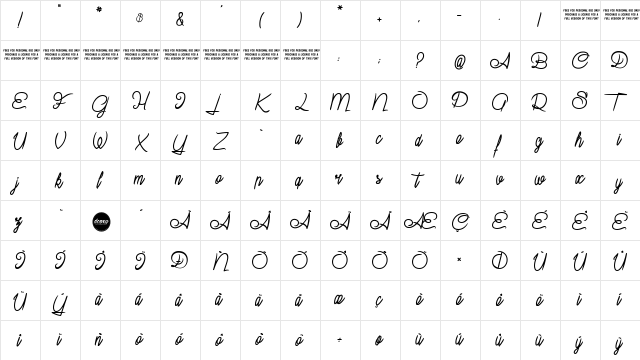
Suburban Pledge Regular
Foundry: dcoxy Medina Gregory
Designer: dcoxy Medina Gregory
Design Context for Suburban Pledge
Suburban Pledge is a composed and adaptable typeface that performs quietly and consistently across a wide range of design contexts.